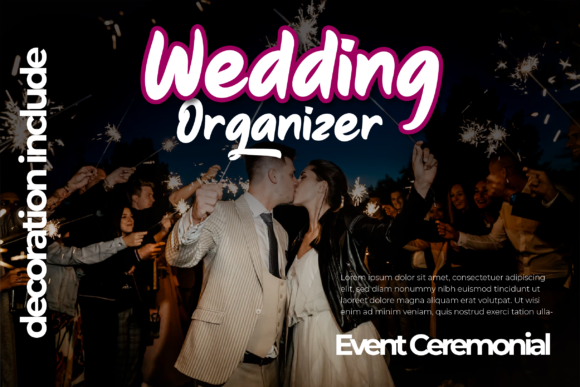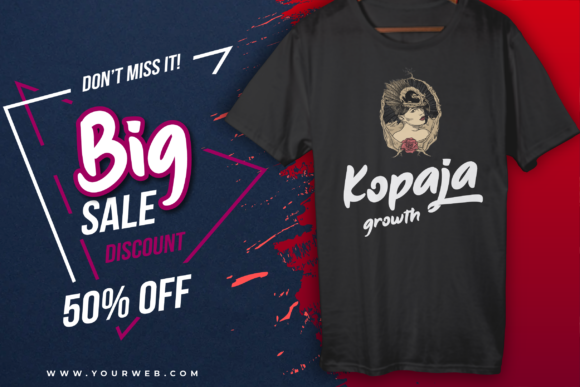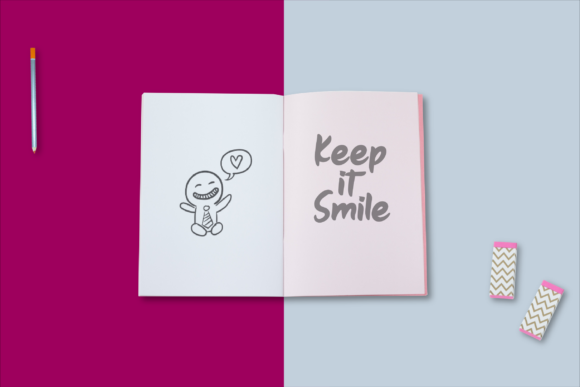
Introduction to Qiyutie Font
Have you ever been scrolling through social media, and a beautiful quote or phrase catches your eye, only to make you stop and think about the creative project behind it? For designers, finding the perfect font can be a game-changer. That’s where the Qiyutie Font comes in – a stunning hand-drawn font that adds an elegant touch to any design.
With its natural handwriting feel, the Qiyutie Font is perfect for quotes, social media posts, advertisements, banners, posters, and much more. Whether you’re a seasoned designer or just starting out, this high-quality font is a valuable addition to your design resource library.
Key Features of Qiyutie Font
- High-quality design resource suitable for creative projects, offering a unique and elegant style.
- Perfect for designers seeking a versatile and stylish font for their creative projects, from branding to typography.
Honest Review: Qiyutie Font
I recently came across the Qiyutie Font, a stunning addition to any designer’s toolkit. This free download is a game-changer for creative projects that require a touch of elegance.
- ✨ High quality design with intricate details
- ✨ Perfect for branding, logos, and other visual identity projects
One of the standout features of the Qiyutie Font is its transparent background, making it a versatile design resource for any project.
- Limitations:
- ⚠️ Limited character set, which may be a concern for extended texts
- ⚠️ Not ideal for body text due to its ornate design
Overall, I’m impressed with the Qiyutie Font’s design and functionality. While it may have some limitations, it’s a valuable addition to any designer’s library.
Getting the Most Out of Qiyutie Font
To get the most out of Qiyutie Font, experiment with different font sizes, colors, and styles to create unique and eye-catching designs. Use it in conjunction with other design resources to add depth and visual interest to your creative projects.
Qiyutie Font is ideal for:
- Designing social media graphics and posts
- Creating presentation slides and documents
- Developing branding materials and marketing collateral